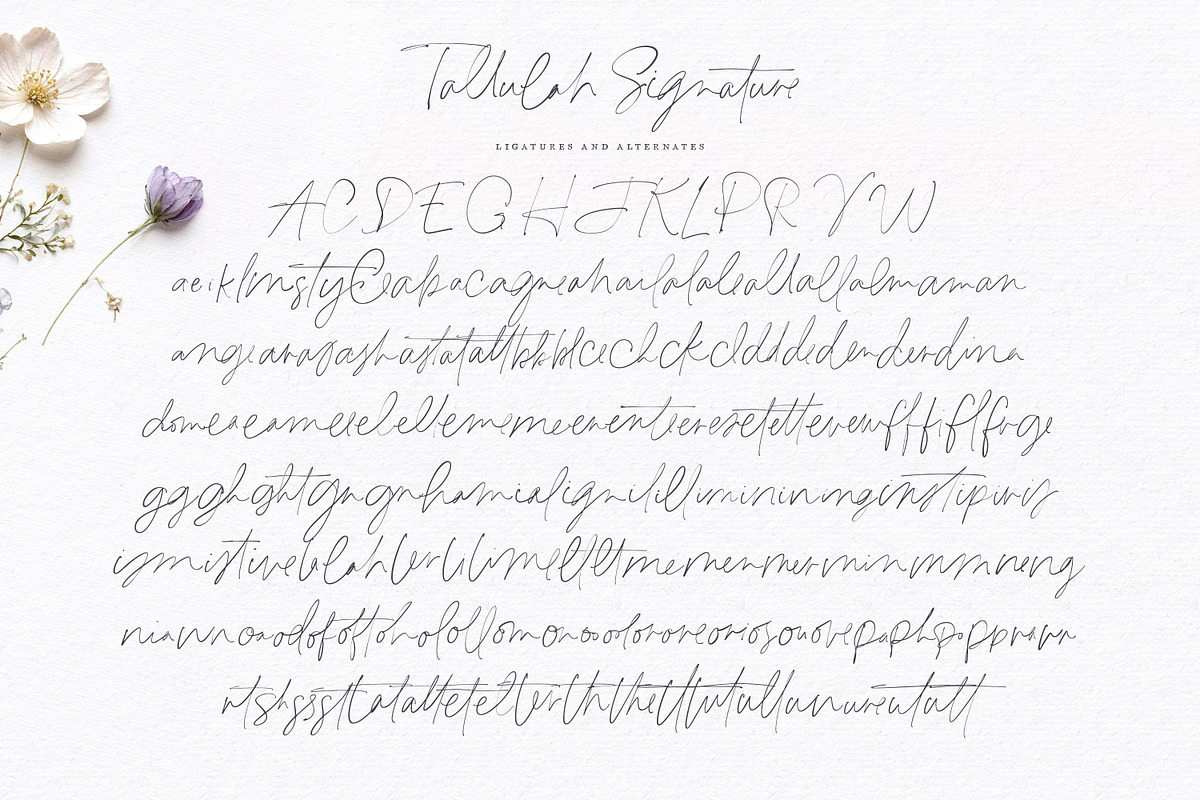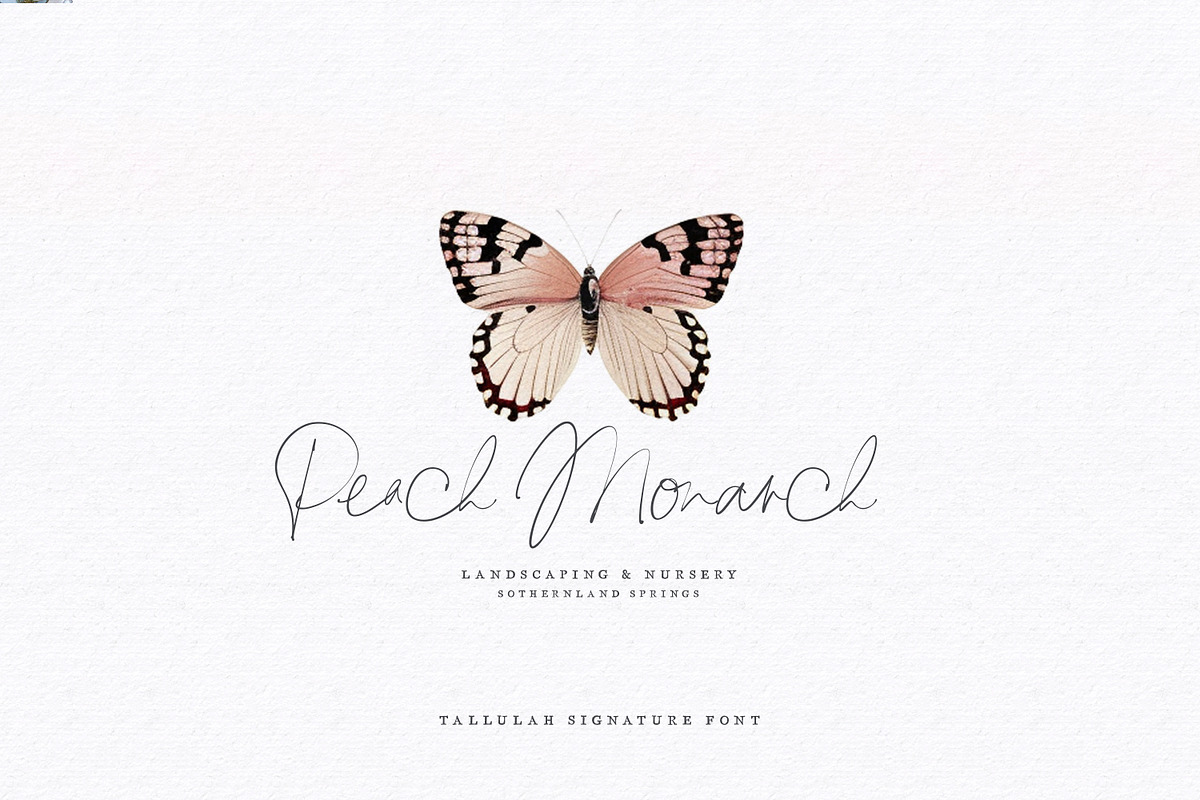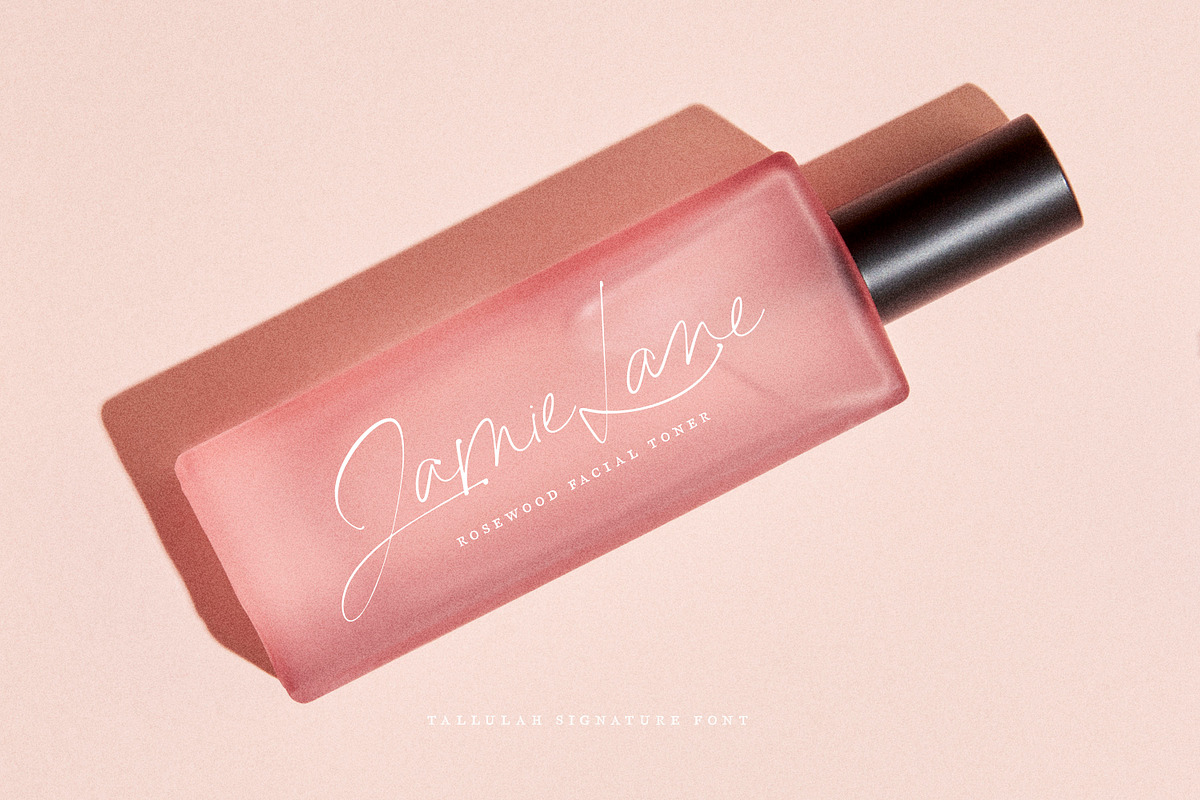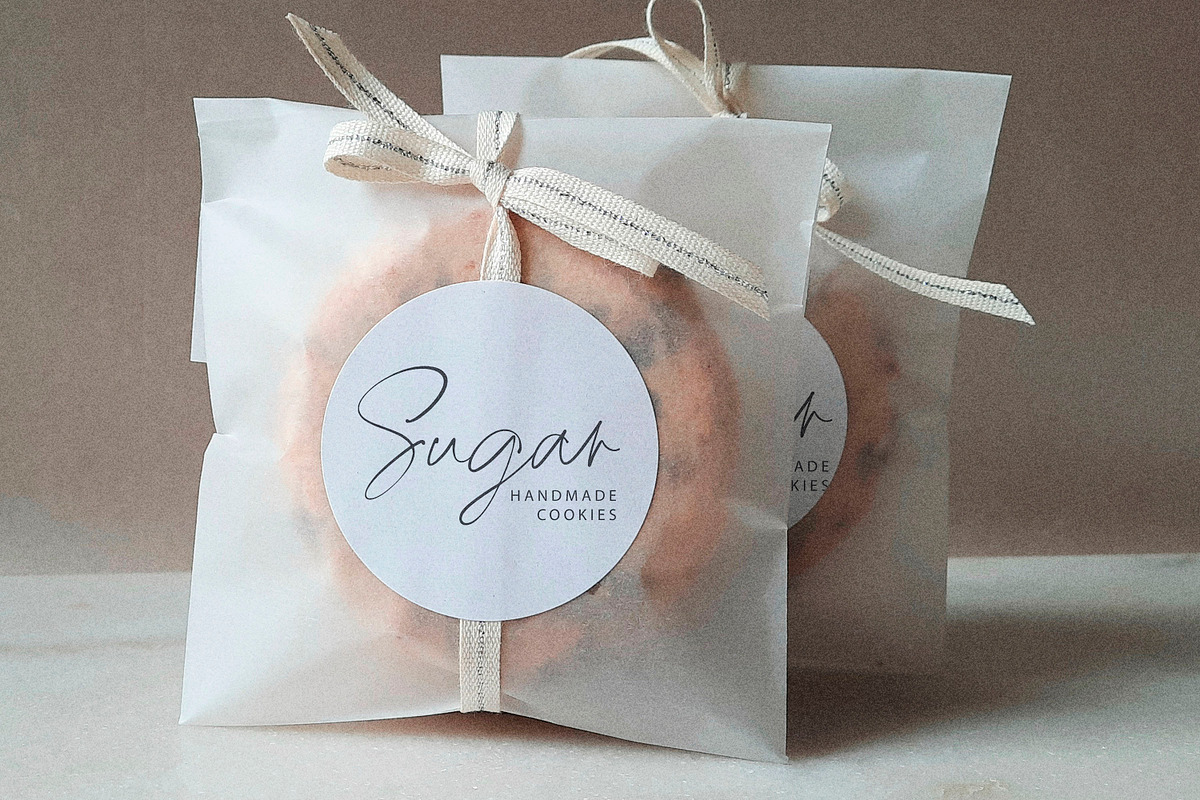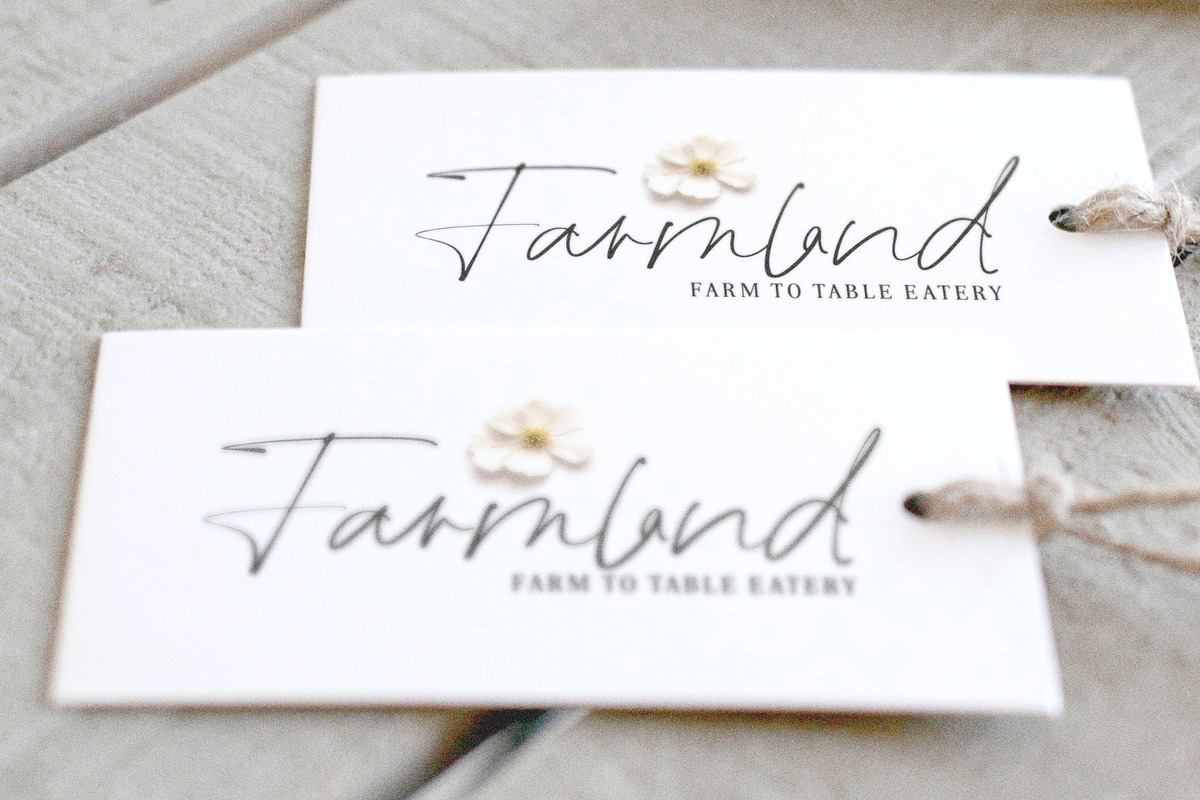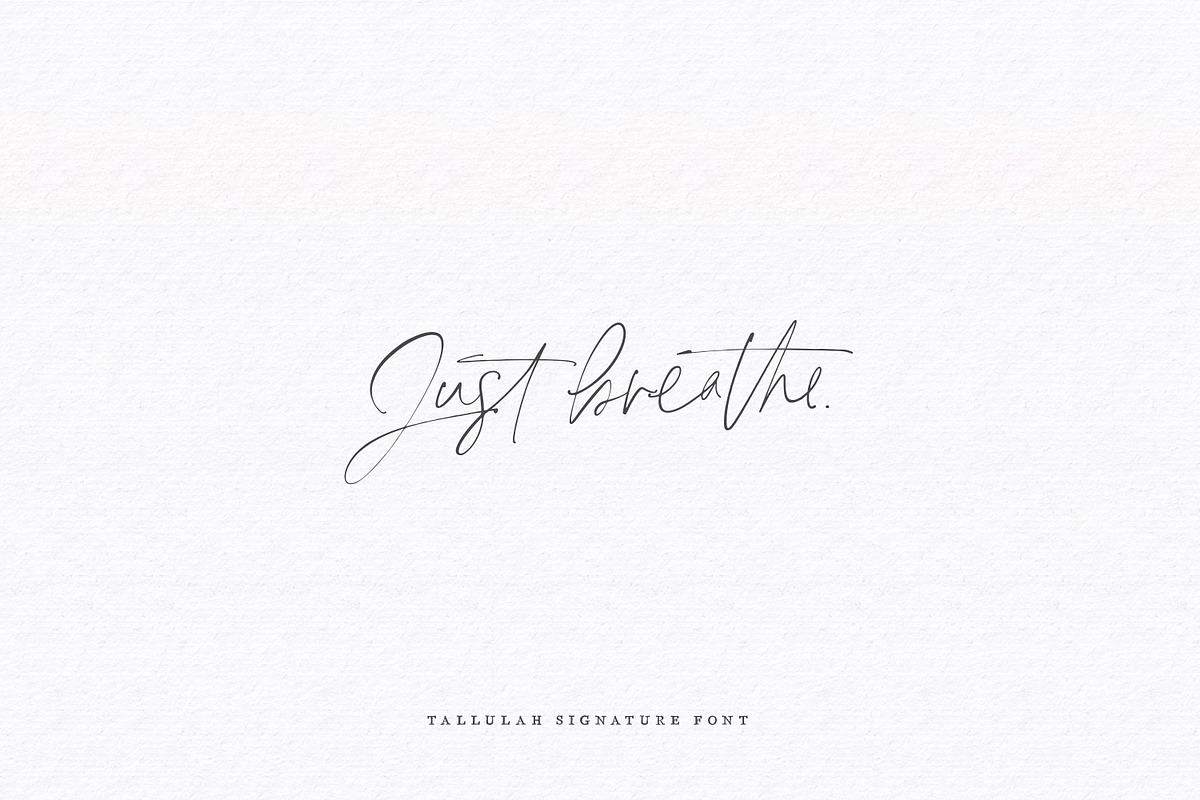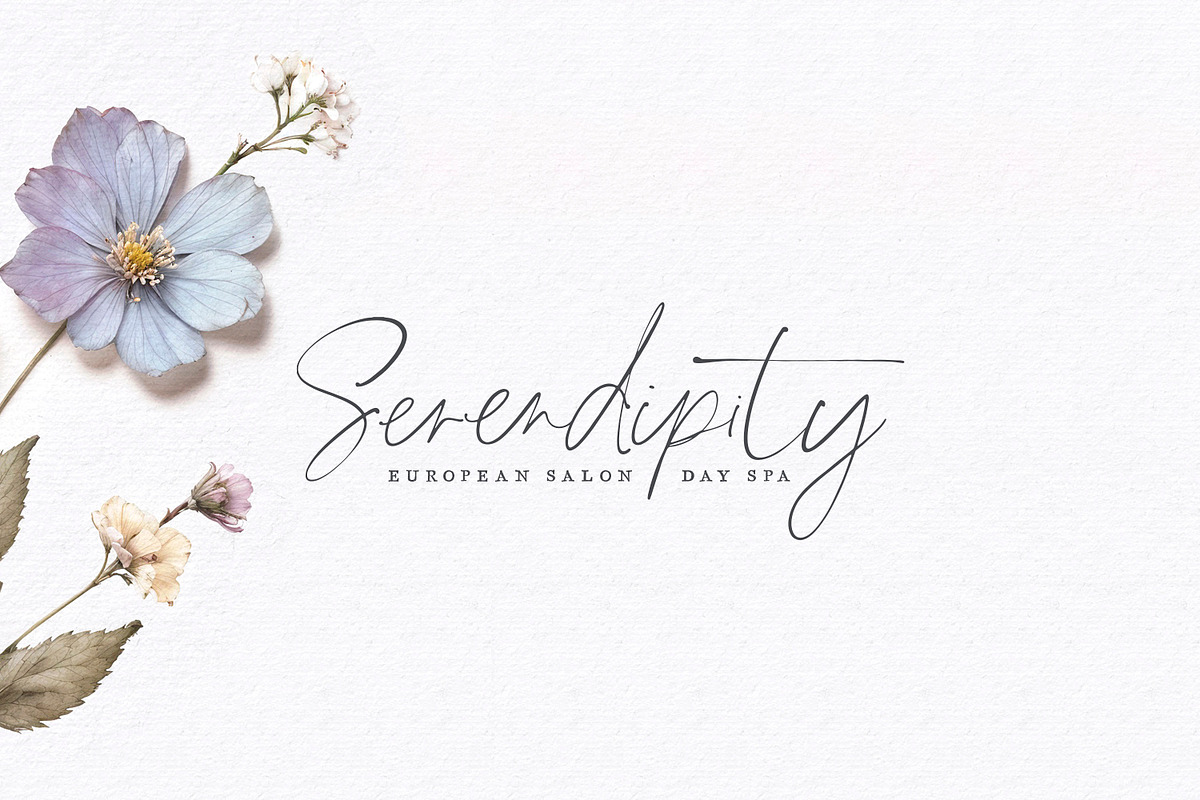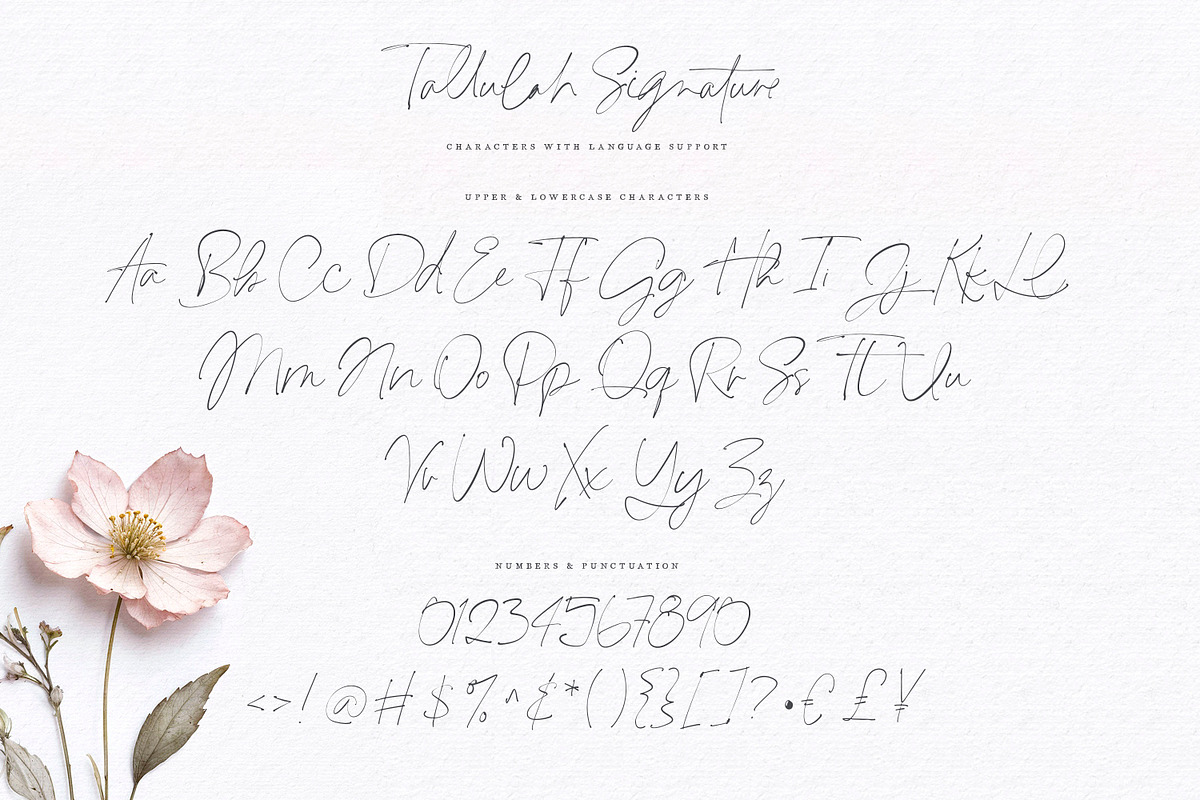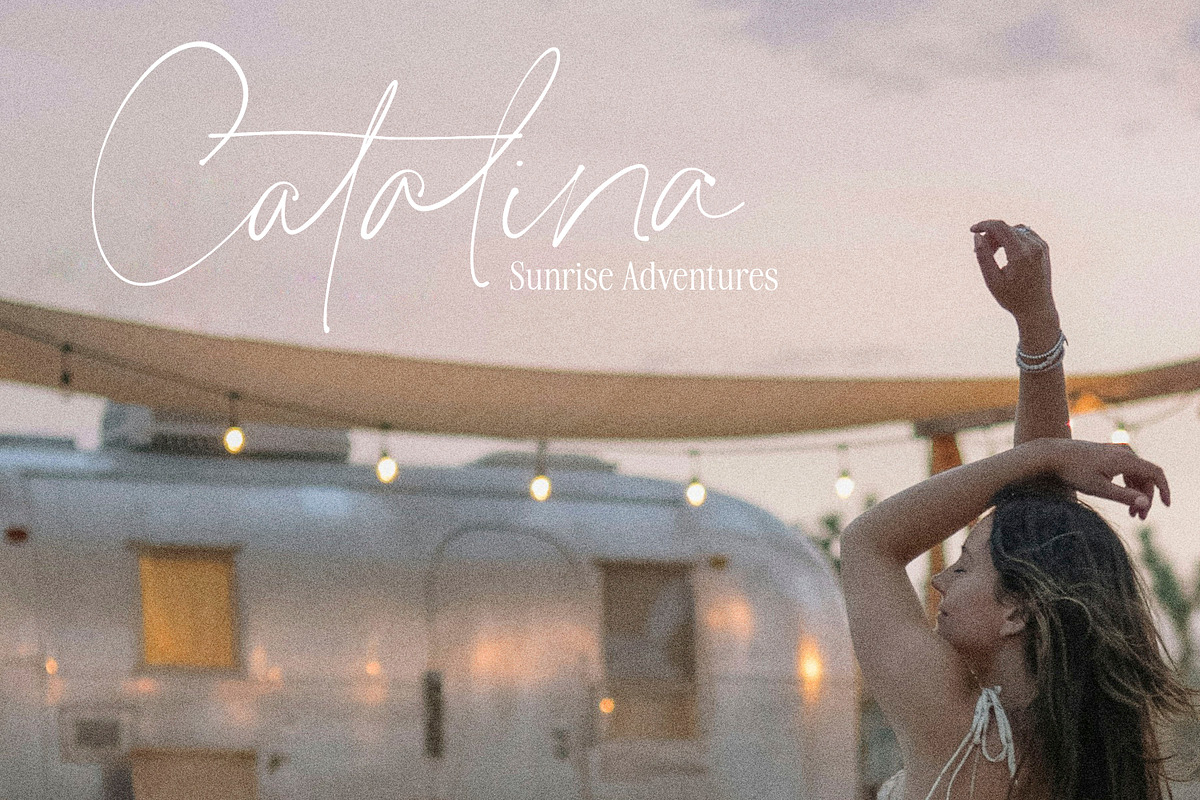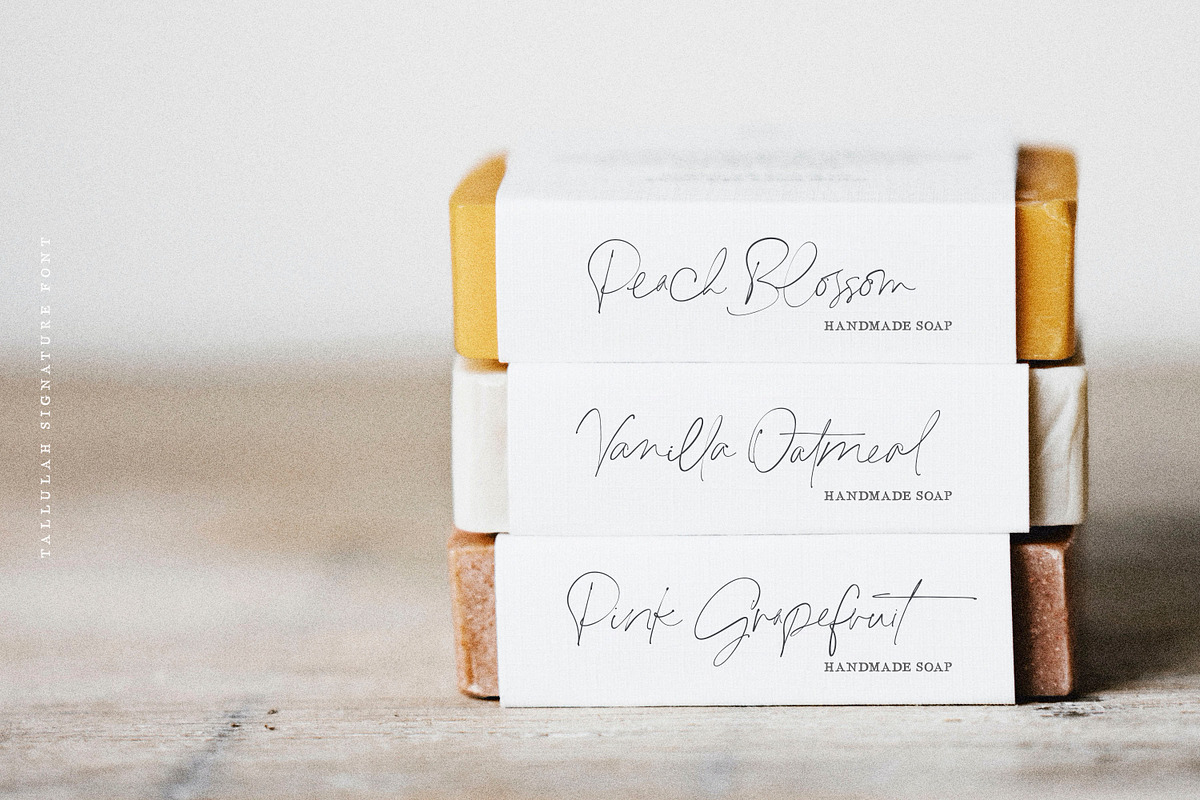
Tallulah Signature Script
Tallulah Signature is here!
This decadent, smooth script was designed to mimic pen and ink signatures, with its thick and thin lines, exaggerated strokes and dancing baseline. Tallulah is perfect for sign-offs, logos, packaging and quotes, but works well for a wide range of products, from wedding invitations to websites.